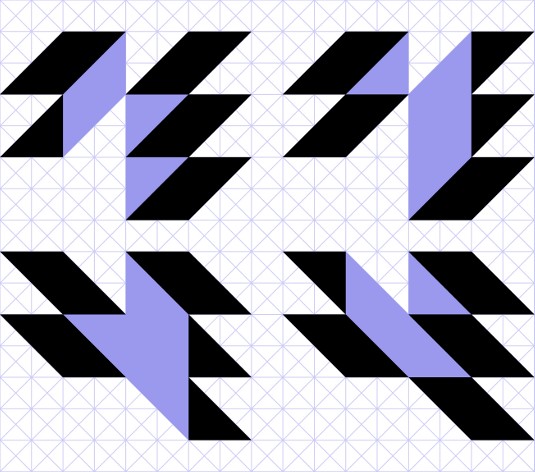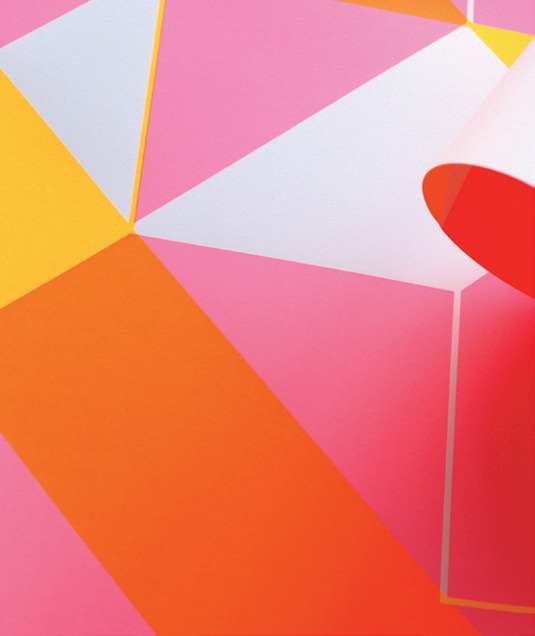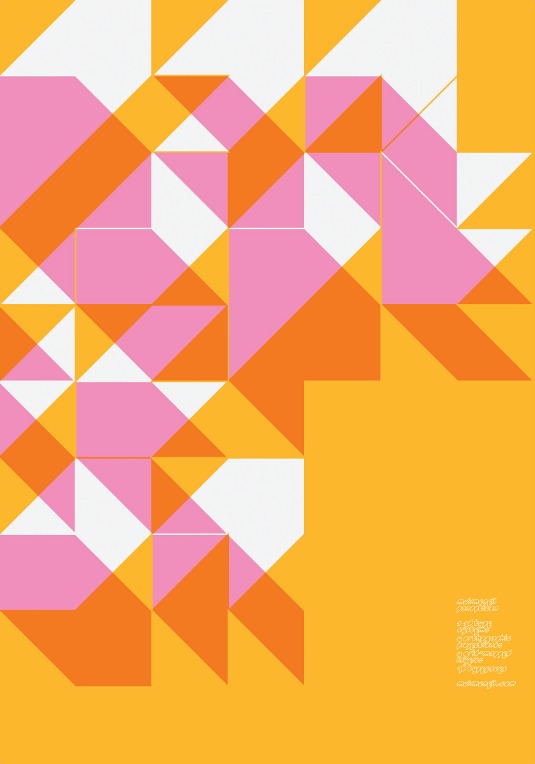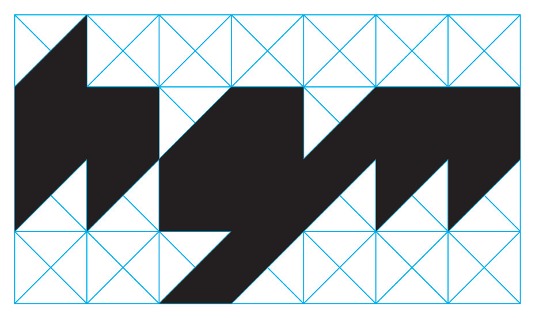
Can you make sense of this abstract 3D font?
MuirMcNeil's system of three-dimensional typefaces comes in four orthographic projections.
Compared to the soft yet modern beauty of ThreeSix, Panopticon – a recent typeface by MuirMcNeil – looks modern and brutal. It's a 3D typeface that comes in four versions – the camera position shifting for each one.
"There is no inter-character spacing in Panopticon. The letterforms are designed to fit edge-to-edge in both horizontal and vertical dimensions," says Hamish Muir. "The layers in each Panopticon projection are designed to interact with one another."
The typeface is actually named after a type of prison designed in the 18th century by Jeremy Bentham. From one position, it's possible to observe all the prisoners in their cells. Viewed flat, its forms are very abstract, perhaps even a bit alien. However, by changing the colour of certain planes within the letter forms, more sense can be made of them, and the effect can be a lot more pleasant.
MuirMcNeil has designed a poster to promote it. Muir explains: "The screen-printed poster explores one such interaction by overlaying and offsetting the word 'panopticon' – split onto four lines – using overprinting to emphasise the abstract nature of the letterforms, which are constructed from a set of core common elements.
"In this poster we're trying to locate the edge between reading and pure form, and depending on lighting conditions and viewing distance, the poster reveals the word 'panopticon' or fragments to a pattern of abstract geometrical shapes."